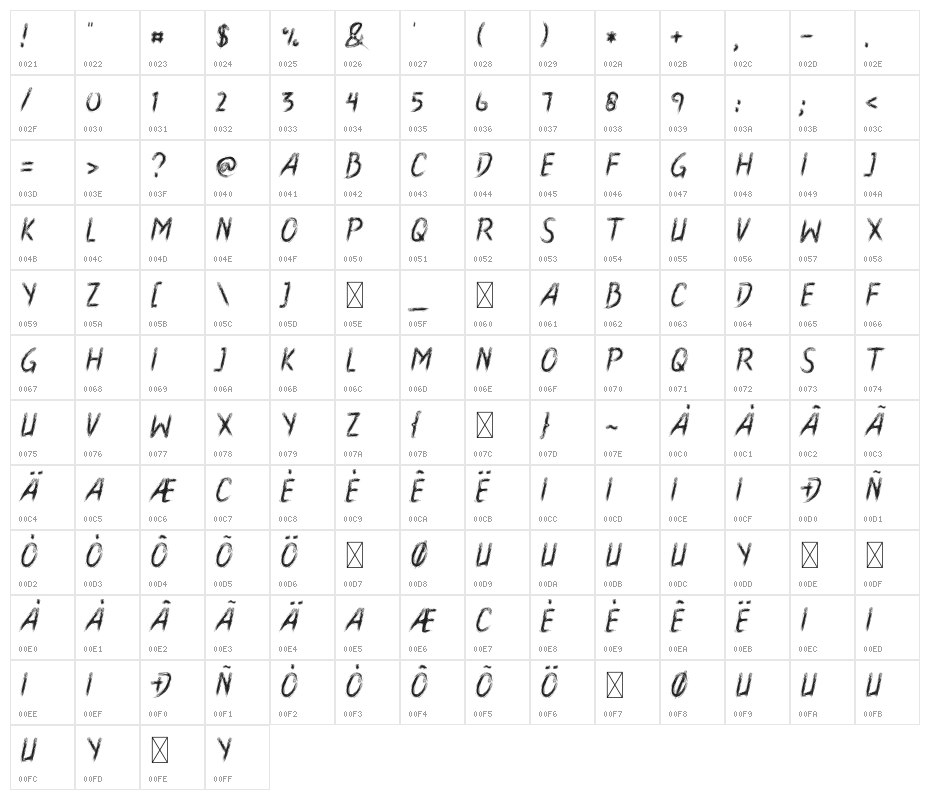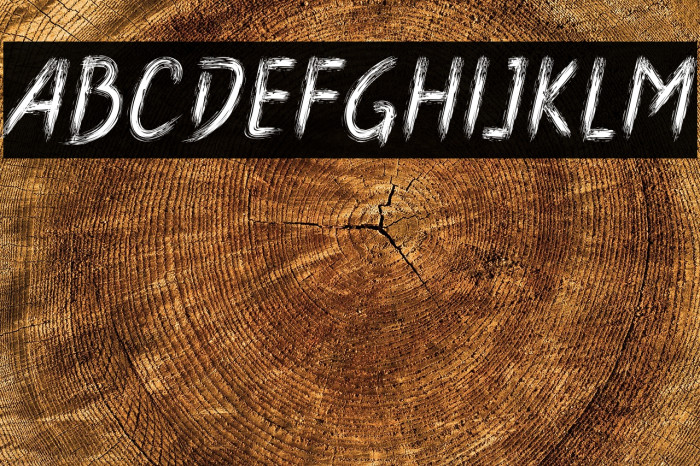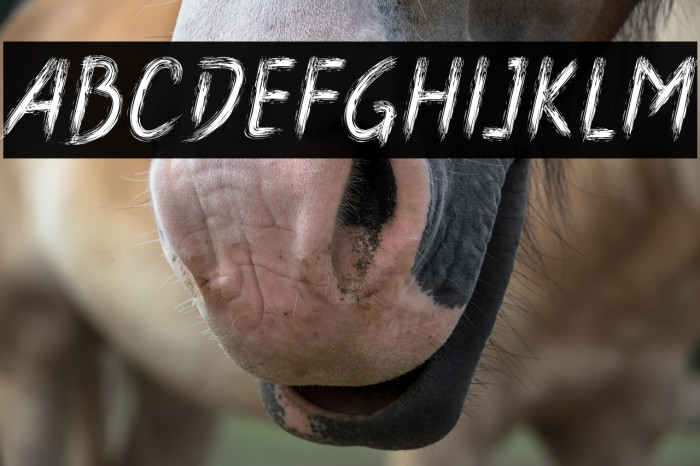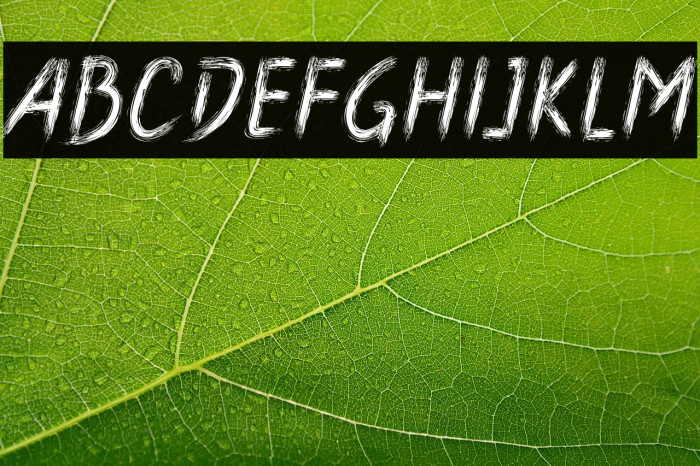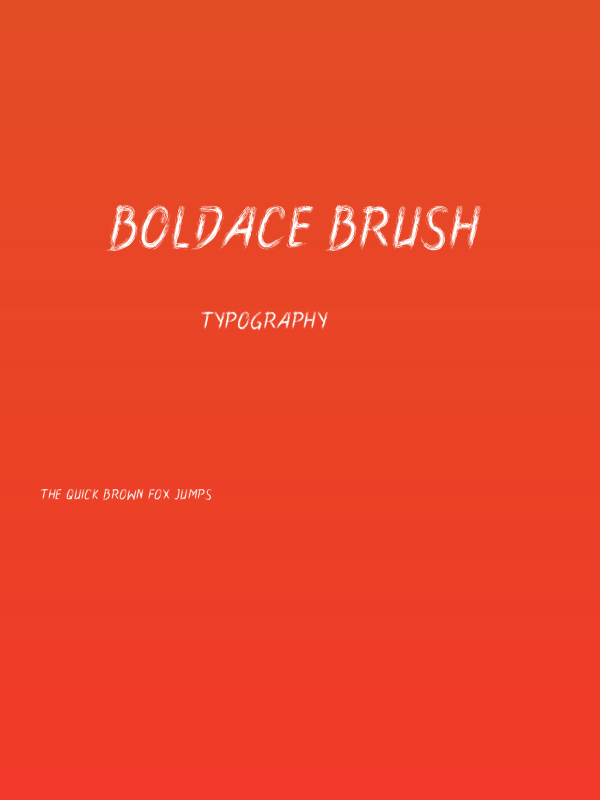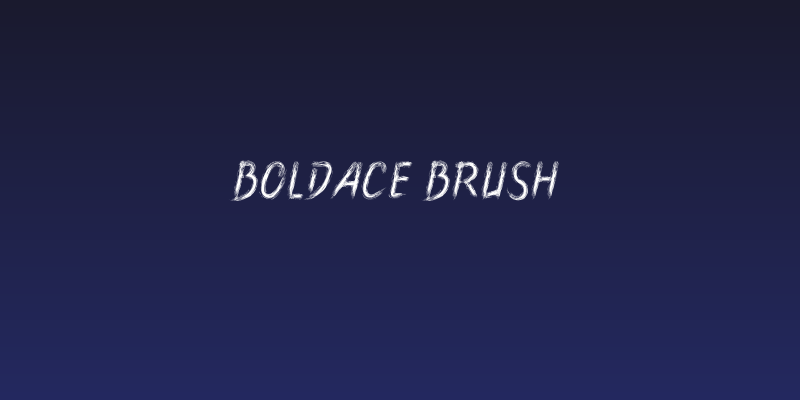
Boldace Brush Font
Boldace Brush Description
This font features a dynamic and energetic brush style, characterized by its bold and expressive strokes. The letters are crafted with a rough, textured appearance, giving them a hand-painted look. The uppercase and lowercase characters maintain a consistent style, with a slightly slanted orientation that adds a sense of movement and fluidity. The numbers and special characters are designed to match the overall aesthetic, ensuring a cohesive appearance across all text elements. This font's unique style makes it stand out, perfect for projects that require a bold and artistic touch.
| Overall Style | Modern, Artistic |
| Proposed Projects | Ideal for posters, branding, social media graphics, and artistic projects that require a bold, expressive typeface. |